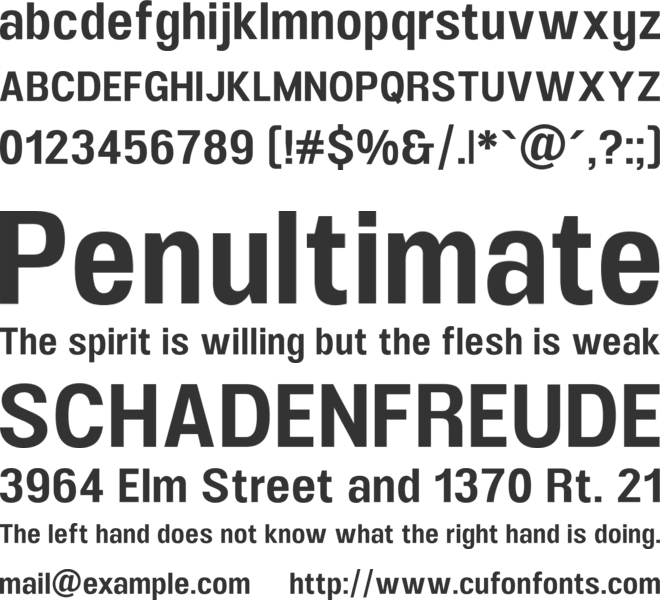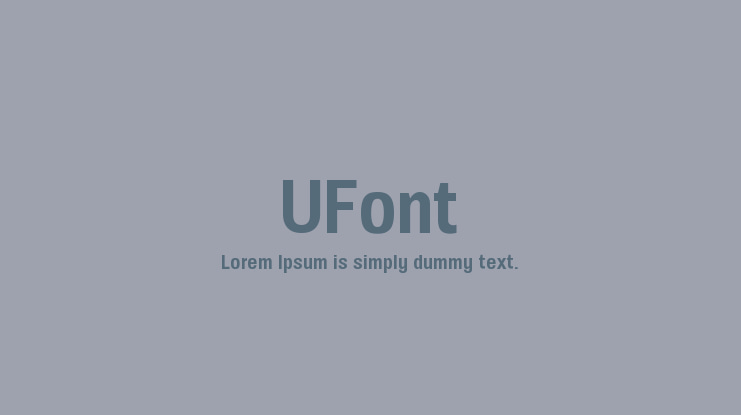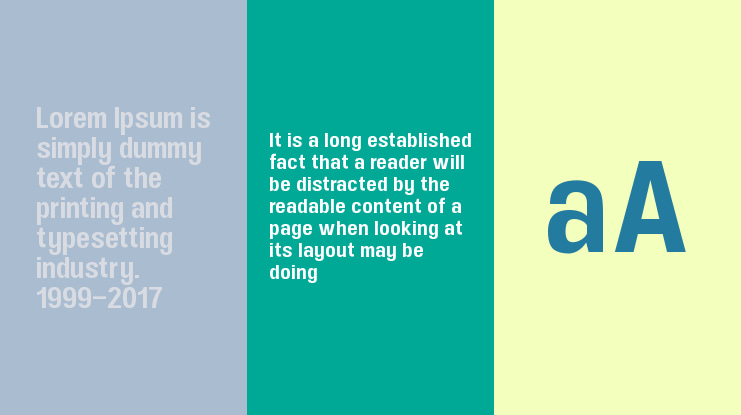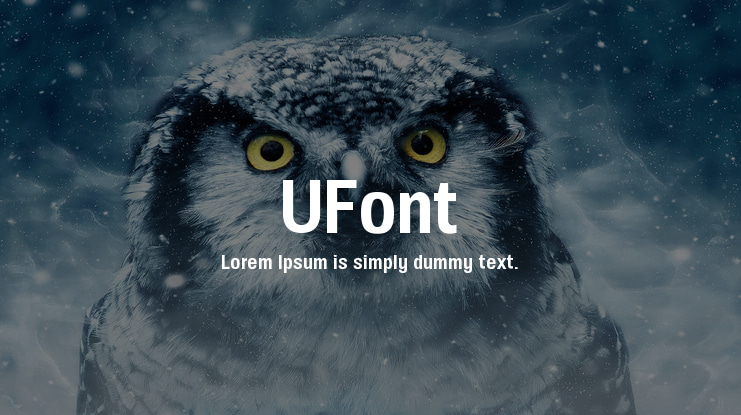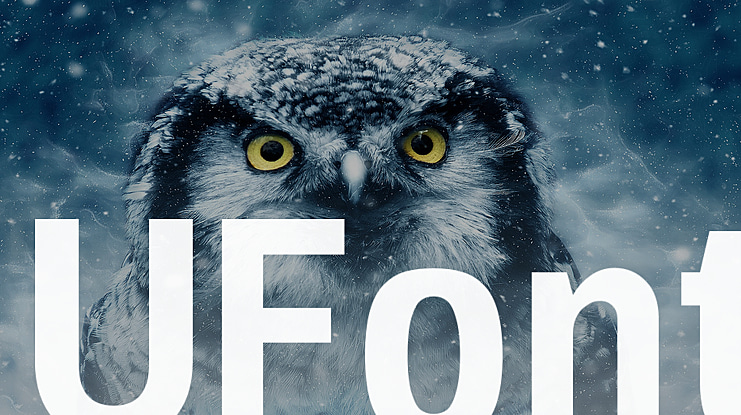
UFont Font
Originally designed as a custom typeface for a client's logo, this font has since been expanded into a fully working font, supporting a significant number of languages.